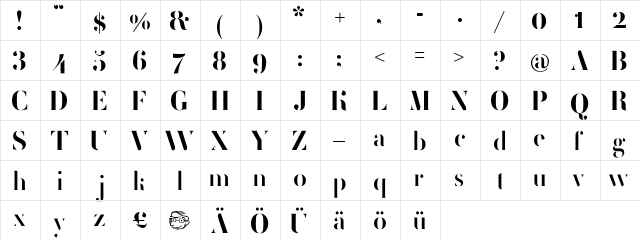
FEMORALIS Regular
| Designer | Lukas Gerber |
FEMORALIS is a composed and adaptable typeface that performs quietly and consistently across a wide range of design contexts.